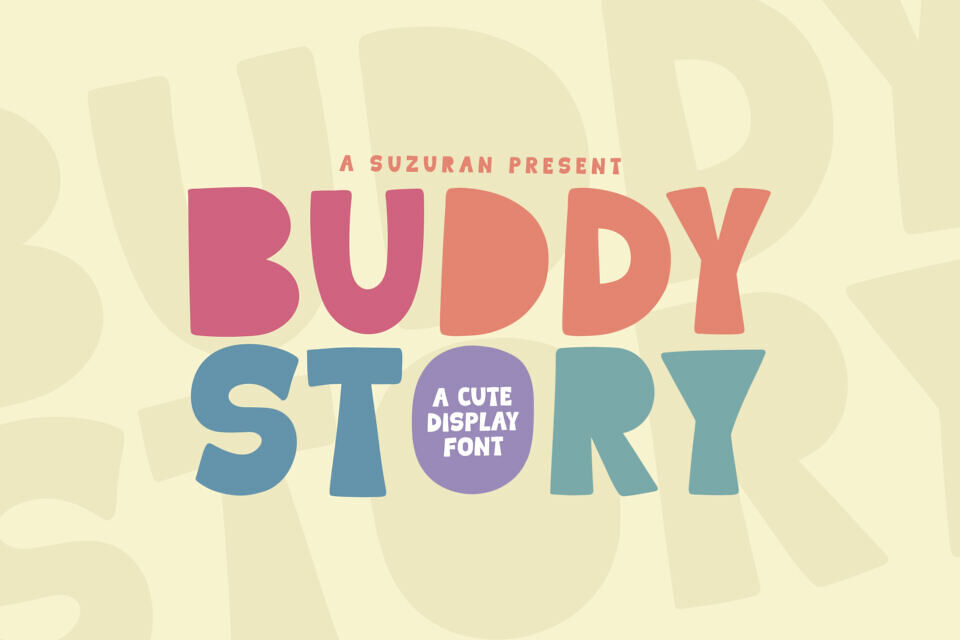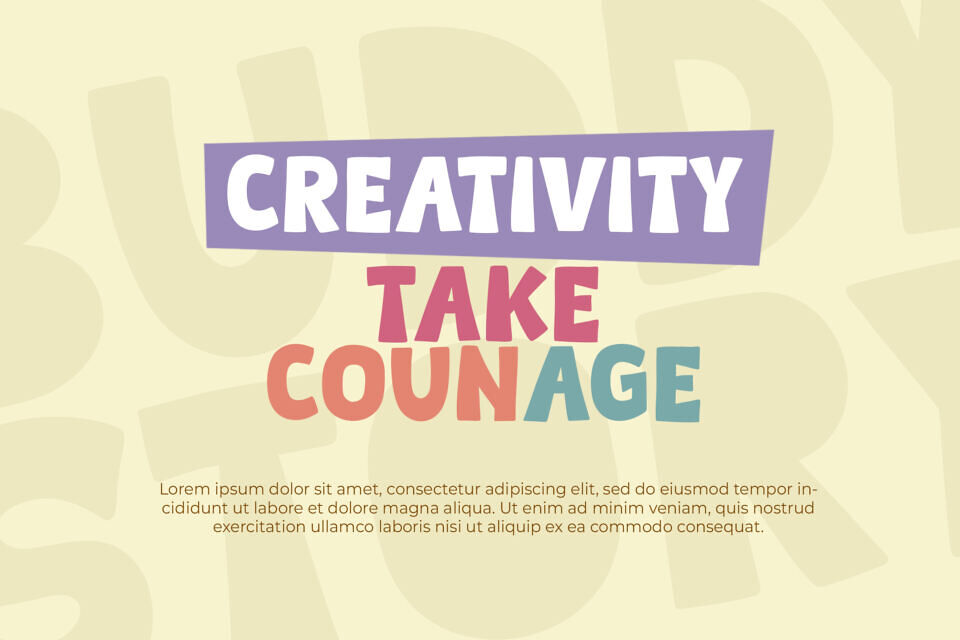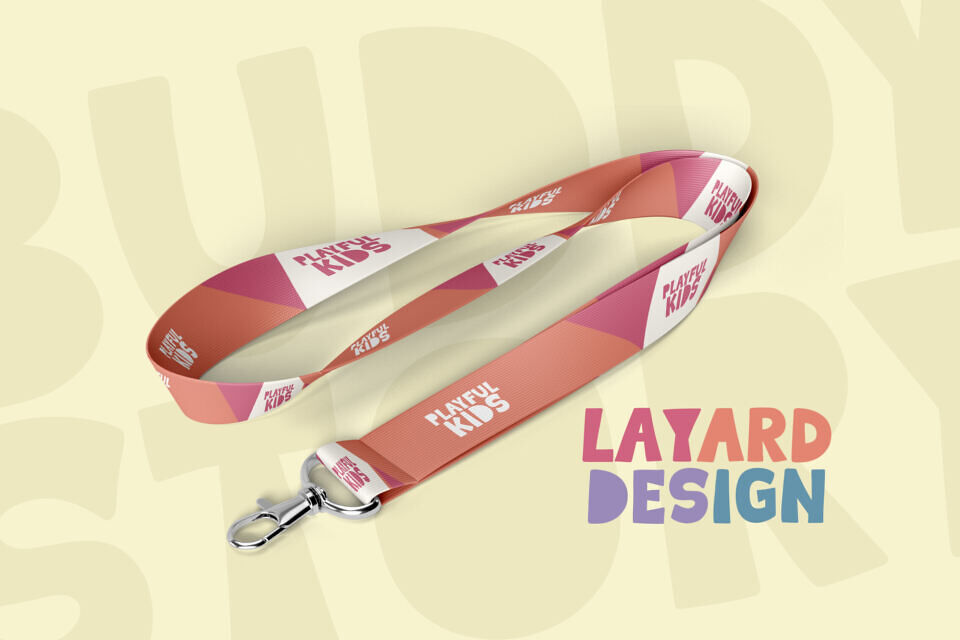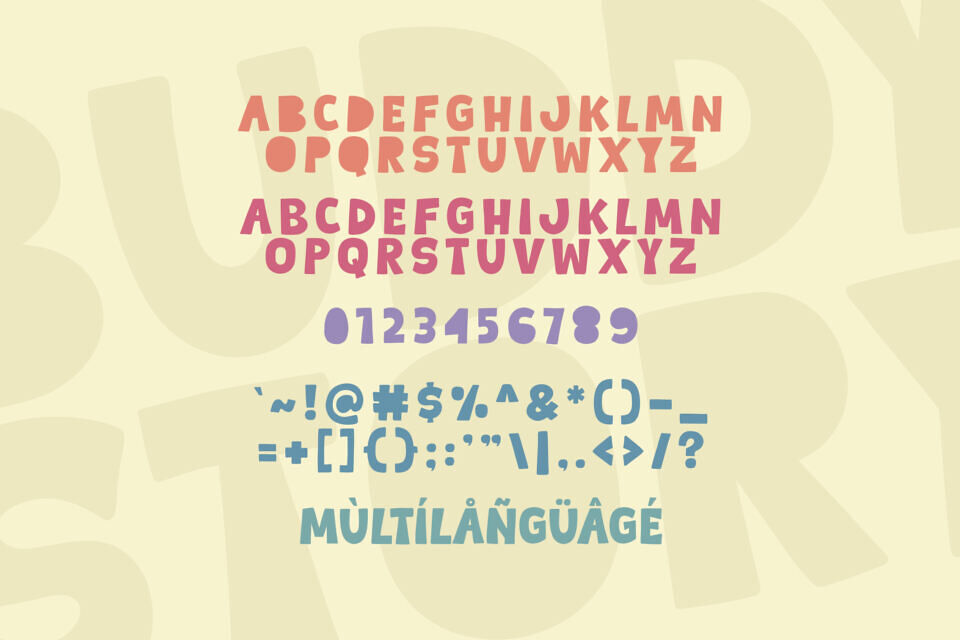
Buddy Story is a modern and unique display font with a lovely twist. This font is perfect for posters, logos, magazines, book covers, banners and more! Get this amazing font, and use it to create beautiful designs.
It can easily be adapted to a very large set of projects, so add it to your creative ideas and watch how it makes it stand out!